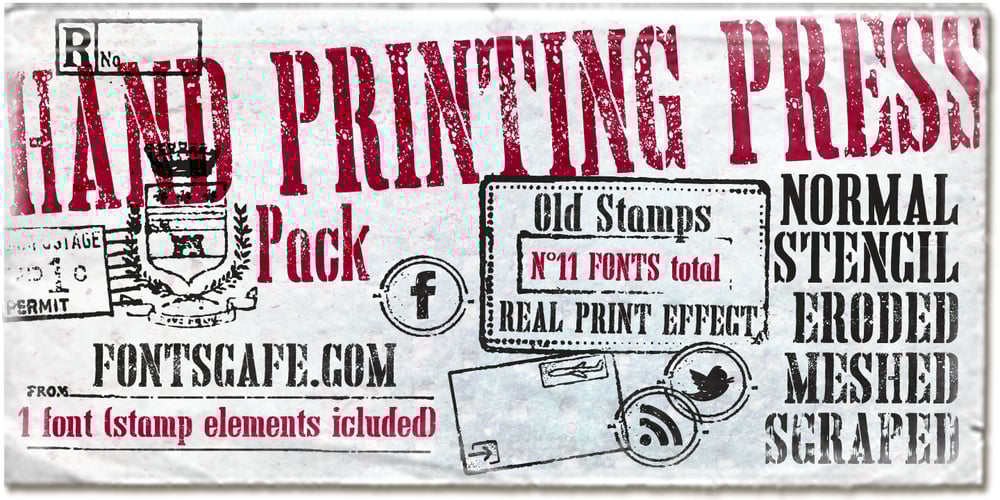
Hand Printing Press Font Family was designed by published by Fontscafe. Hand Printing Press contains 11 styles and family package options. Hand printing typography revolutionized the way books were published. The earliest printing presses made it possible for newspapers to reach the doorstep every morning, for information to freely be shared among the masses for the first time on a large scale…and the fonts that were used in those classic times are forever embedded within the collective memories of societies across the planet. It is to this collective memory that we give a visual form with our new Hand Printing Press Pack. Up for grabs are a set of 10 Hand Printing fonts plus one “Stamps” elements font. The fonts are: the Normal, the Stencil, the Eroded, the Meshed and the Scraped in REGULAR and BOLD versions; each of them displaying a simplistic yet classic printing style and as often happens lately, we are also offering you an “elements” pack, the “Stamps” font, to go with these to create your customized stamp giving to your creations a touch of “official documentation”.